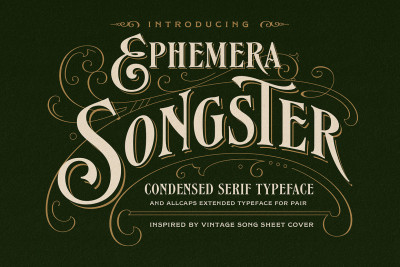
Songster Typeface + Extras
Songster Typeface + Extras Font
Songster Typeface + Extras brings a confident, polished presence to any design, from business materials to creative campaigns.